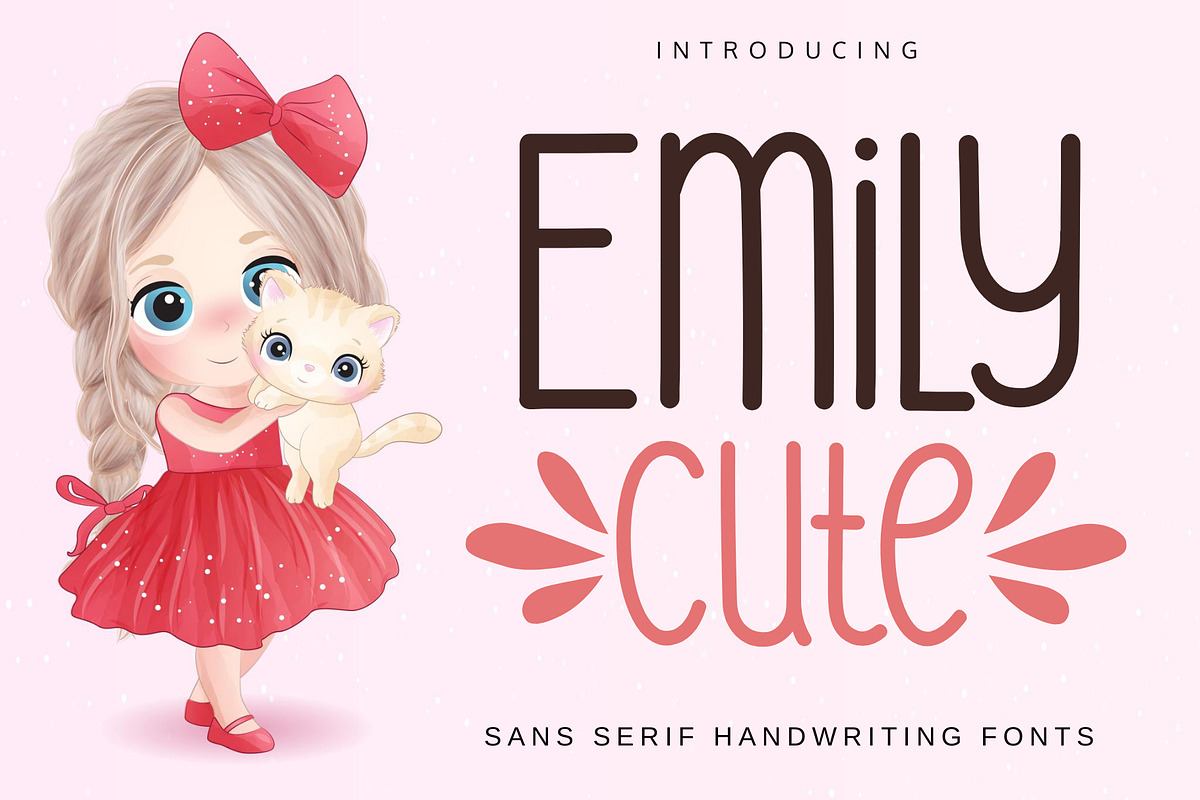
Add a sprinkle of sweetness to your designs with Emily Cute Font Free Download — a playful and heartwarming typeface perfect for all things adorable. Whether you’re designing for kids, crafting planner pages, creating social media posts, or launching a cute product brand, Emily brings personality and charm to every letter.
This font features bubbly curves, soft strokes, and a joyful vibe that makes it stand out in fun, lighthearted projects. It comes complete with uppercase and lowercase letters, numbers, punctuation, and multilingual support — giving you everything you need to create vibrant, loveable designs.